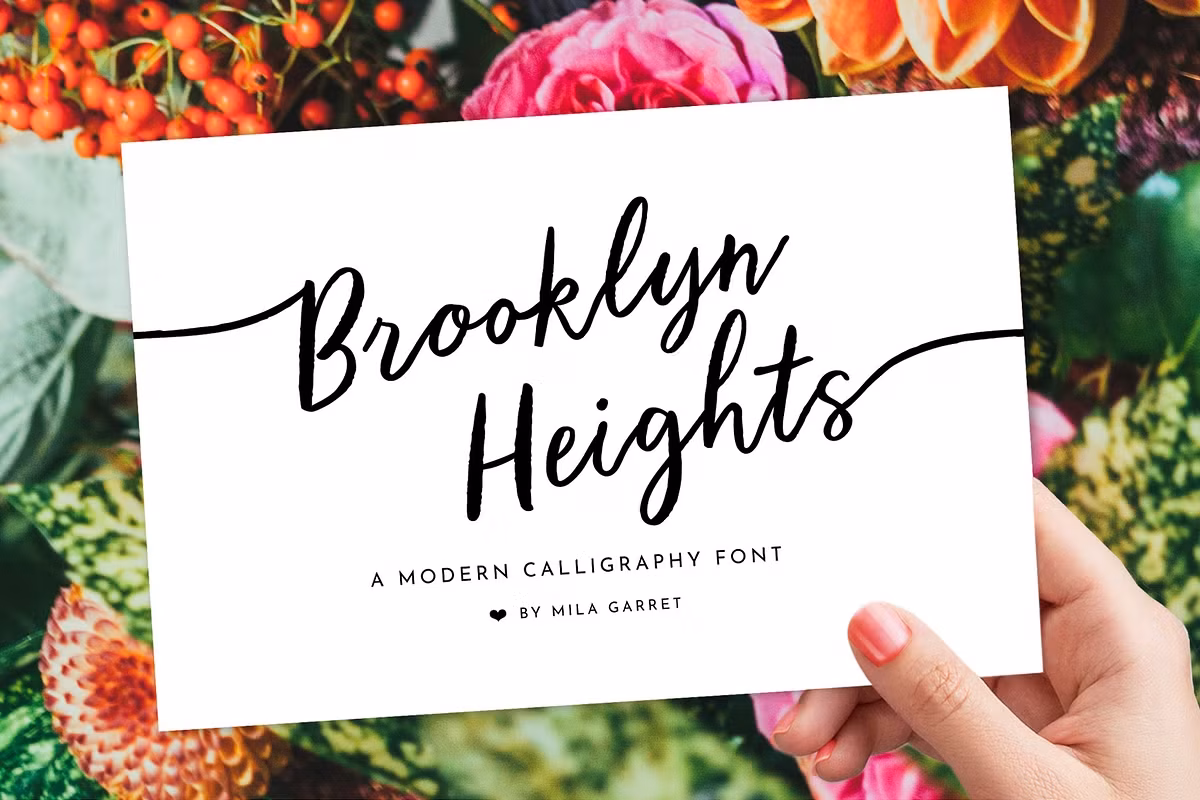
The Calligraphy Script Brooklyn Heights Font Free Download is an elegant and sophisticated script typeface designed to add a graceful, handwritten touch to your designs. Featuring flowing, cursive letterforms and a smooth, stylish flair, this font is perfect for creating upscale logos, invitations, branding, and creative projects. Whether you’re designing for a wedding, a luxury brand, or an artistic campaign, Brooklyn Heights brings a refined, personal touch to your work.
Calligraphy Script Brooklyn Heights Font Free Download is ideal for designers looking to create elegant, handwritten typography with a luxurious feel. Perfect for invitations, branding, and creative projects, this font will elevate your designs with its sophisticated calligraphic style. Download it today and infuse your work with the timeless beauty of Brooklyn Heights!